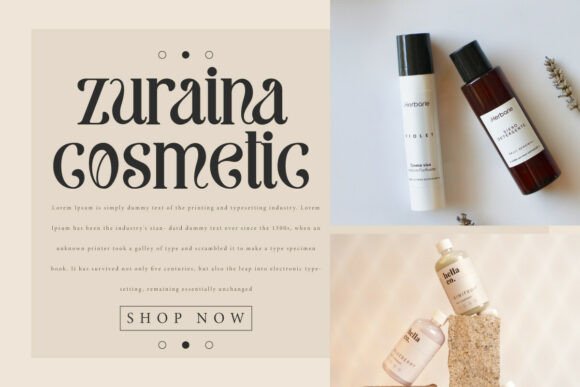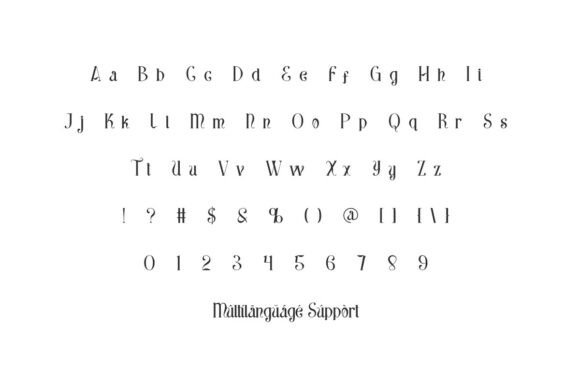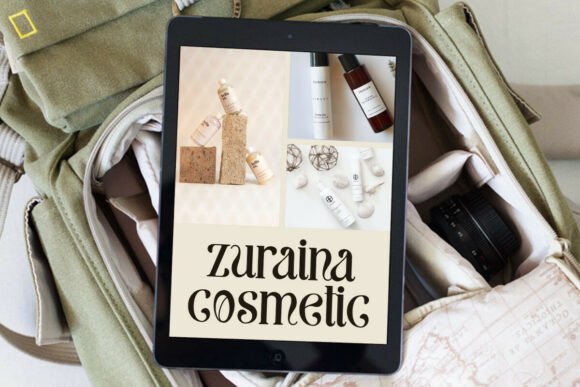
The Amarle Font: Elevate Your Designs with Timeless Elegance
Have you ever been in the middle of a design project, and suddenly, you’re stuck on finding the perfect font? I recall a recent experience where I was working on a branding project for a luxury fashion client. The brief was clear: create a sophisticated and elegant visual identity that exudes high-end quality. As I scrolled through my font library, I stumbled upon the Amarle font, and it instantly caught my attention. Its bold, classic serif lines and modern artistic touch were exactly what I needed to bring the project to life.
An Honest Review: What I Love and What to Consider
- ✅ Timeless elegance: Amarle’s classic serif design makes it perfect for projects that require a touch of sophistication.
- ✅ Versatility: This font family is ideal for various creative projects, from branding and magazine layouts to product packaging and wedding invitations.
- ✅ Language support: Amarle supports multiple languages, making it a great choice for global brands or projects with diverse audiences.
While Amarle is an excellent font, there are a few things to consider:
- 🤔 Glyph limitations: Although Amarle includes a complete set of uppercase and lowercase characters, numbers, punctuation, and symbols, some designers might find the glyph options limited compared to other font families.
- ⚠️ Overuse: Due to its elegant design, Amarle can be overused in certain contexts. Make sure to balance it with other design elements to avoid a too-formal look.
- Experiment with OpenType features, such as stylistic alternates, to add visual interest to your text.
The Story Behind Amarle
Amarle was designed with the intention of creating a font that blends timeless elegance with a modern artistic touch. The designer aimed to craft a typeface that would be versatile, sophisticated, and memorable. With its distinctive charm and classic lines, Amarle has become a popular choice among designers and crafters.
| Font Name | Amarle Font |
| Author | NihStudio |
Q: What is the Amarle font best suited for?
A: Amarle is ideal for various creative projects, including branding, magazine layouts, product packaging, and wedding invitations. Its classic and iconic style makes it an excellent choice for industries like fashion, cosmetics, and photography.
Q: Does Amarle support multiple languages?
A: Yes, Amarle supports multiple languages, making it a great choice for global brands or projects with diverse audiences.